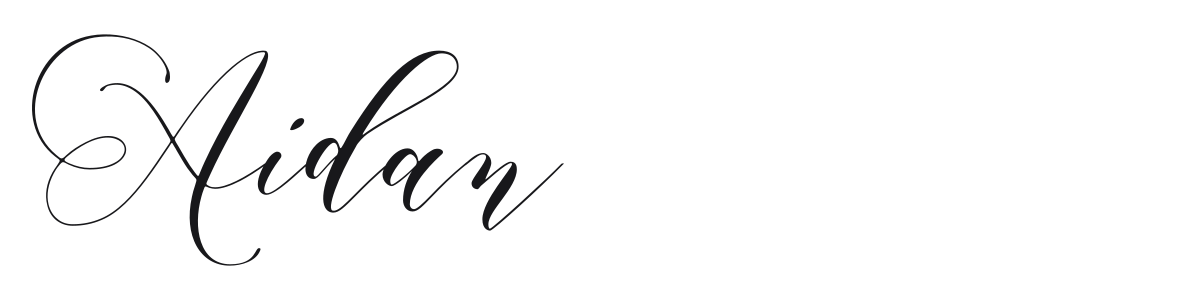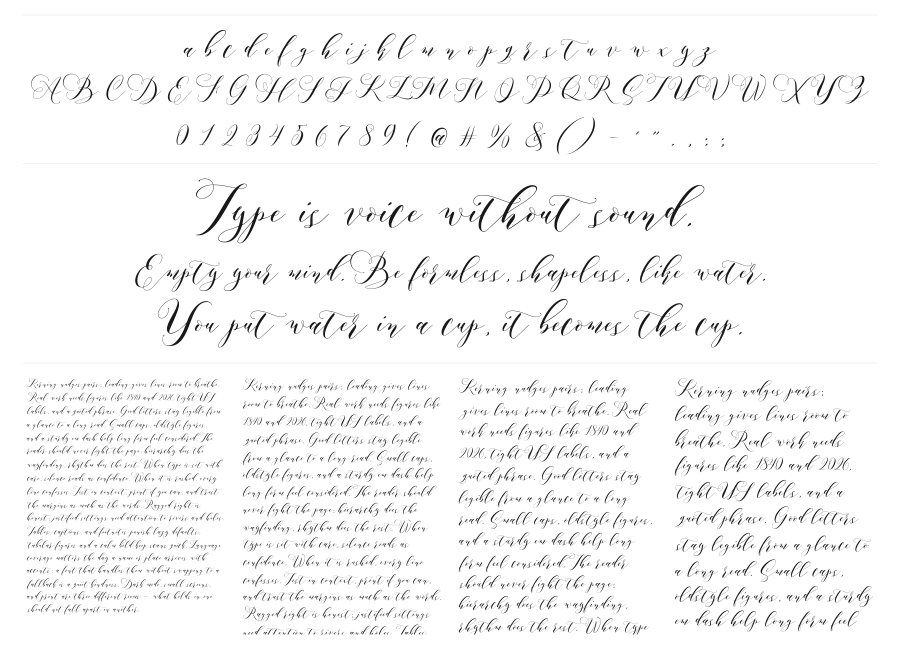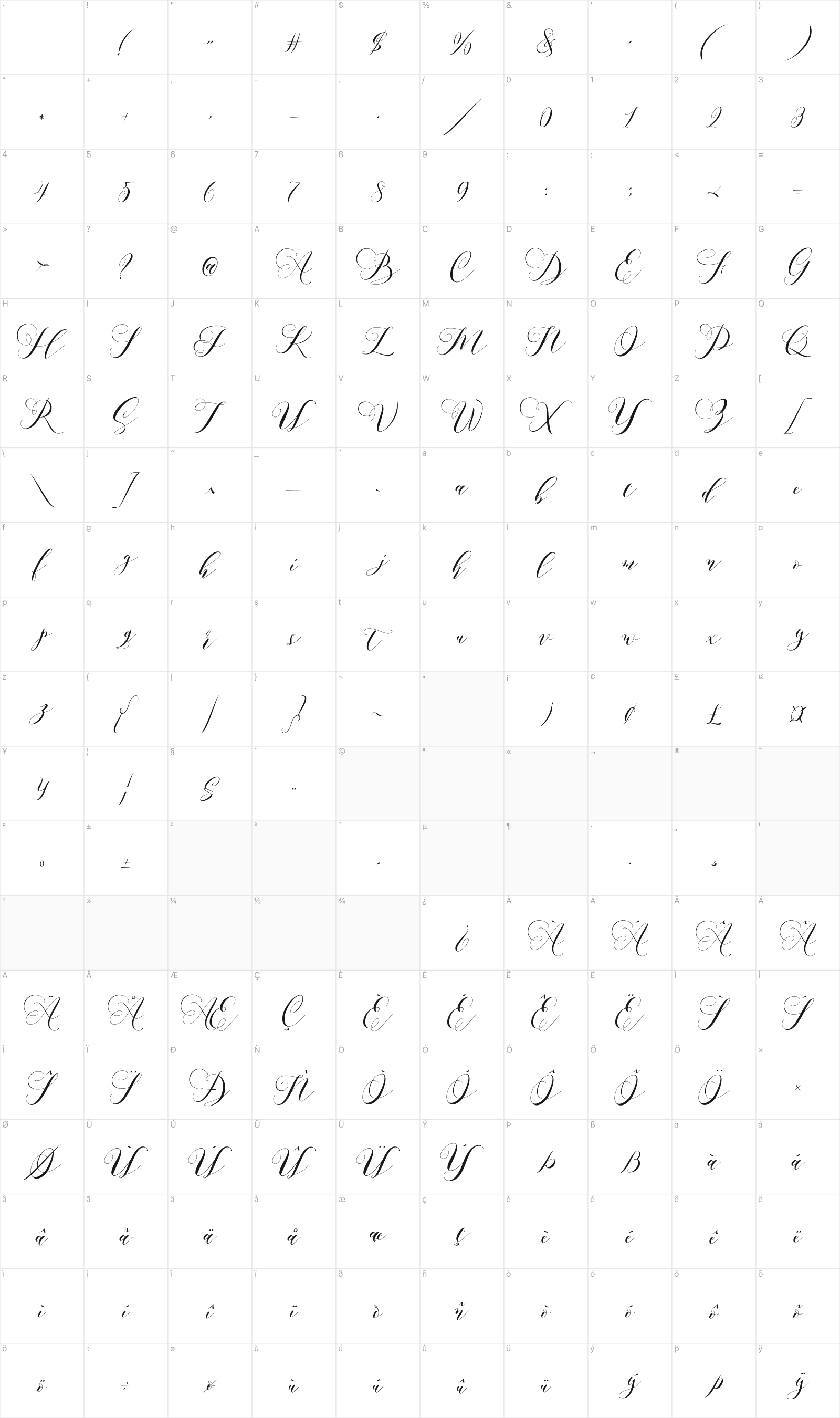
Aidan
Aidan is a romantic formal script with dramatic stroke contrast and sweeping calligraphic flourishes. Long looping ascenders and descenders wind through each word, giving it the feel of hand-lettered copperplate invitation work. It carries the ornate energy of Victorian penmanship translated into a contemporary wedding and lifestyle aesthetic.